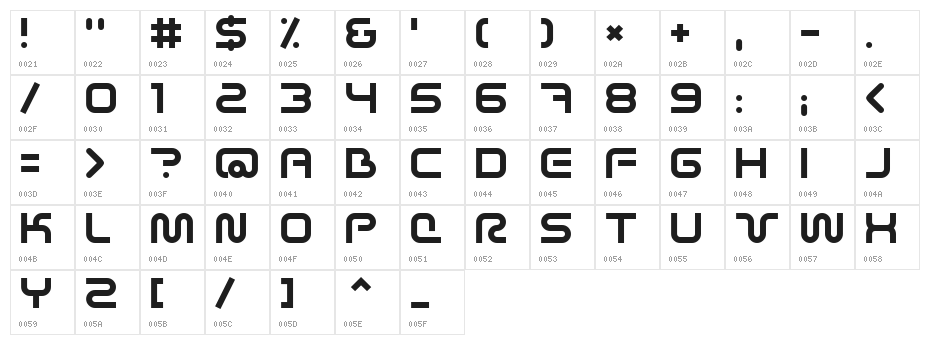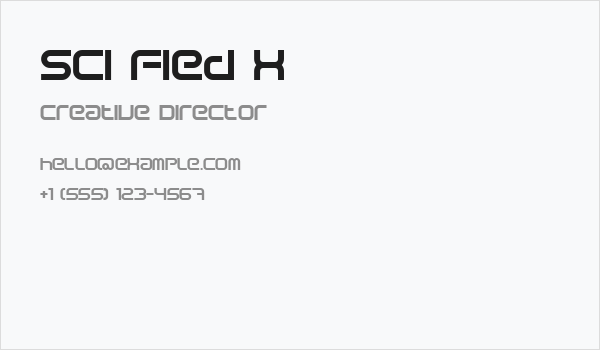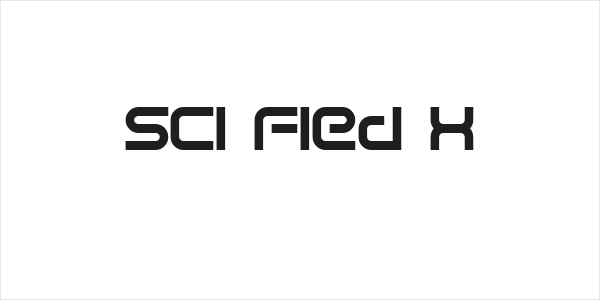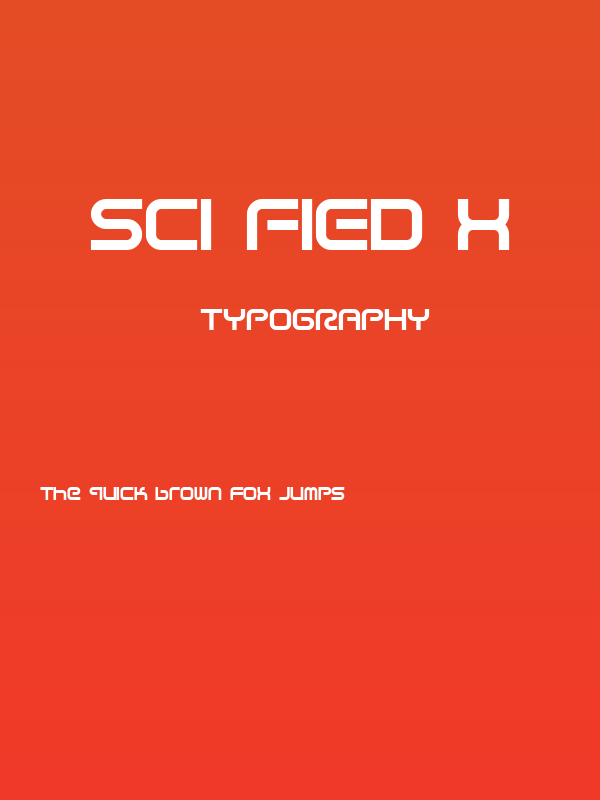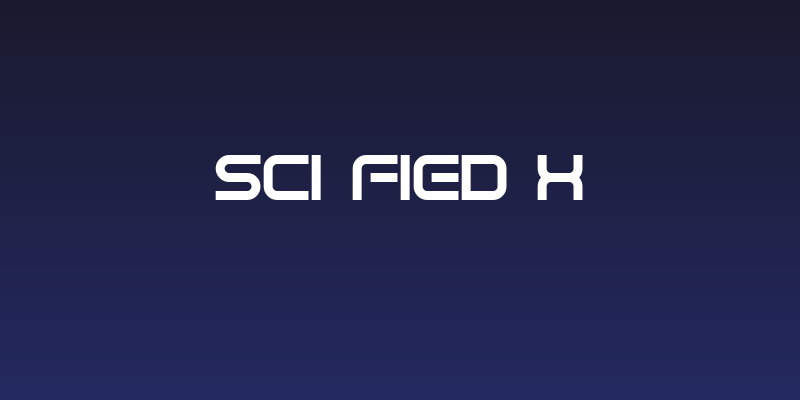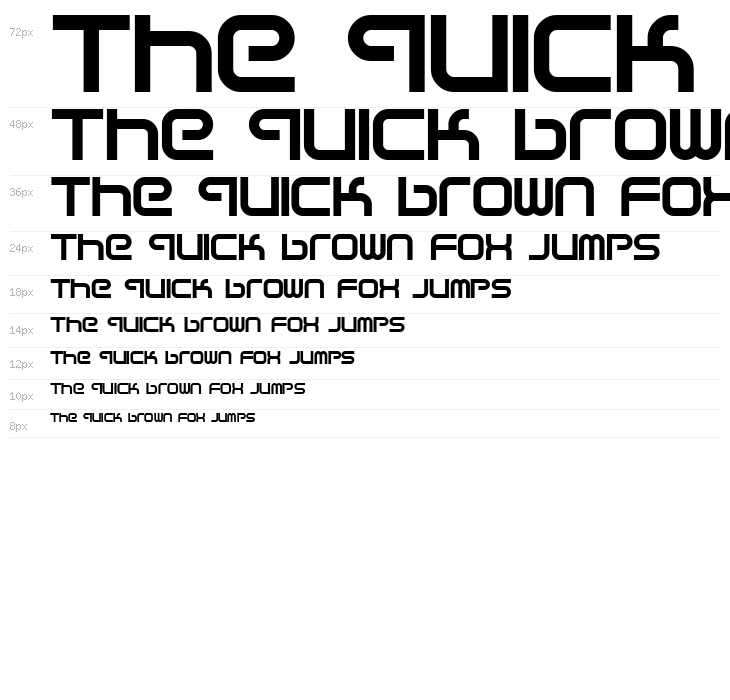
Sci Fied X Font
This futuristic font features a sleek, geometric design with rounded edges and a distinct sci-fi aesthetic. The characters are bold and uniform, with a consistent stroke width that gives them a strong presence. The uppercase and lowercase letters share a similar structure, enhancing the font's cohesive look. Numbers and special characters are designed to match the overall style, making it versatile for various applications. The font's modern and technological vibe makes it ideal for projects that require a cutting-edge appearance.